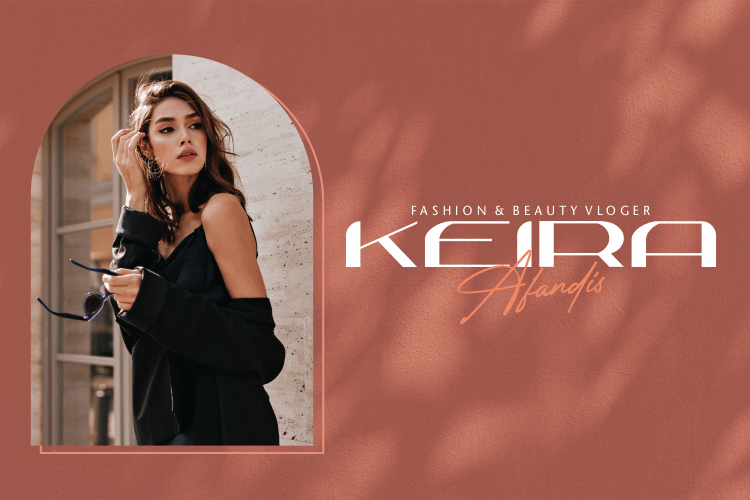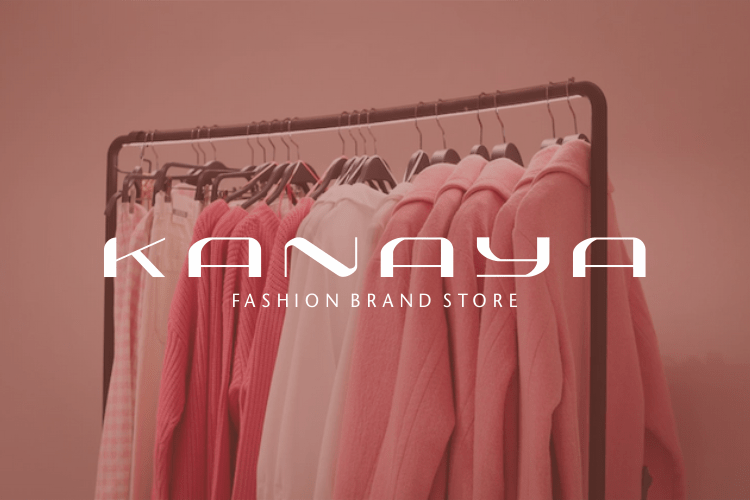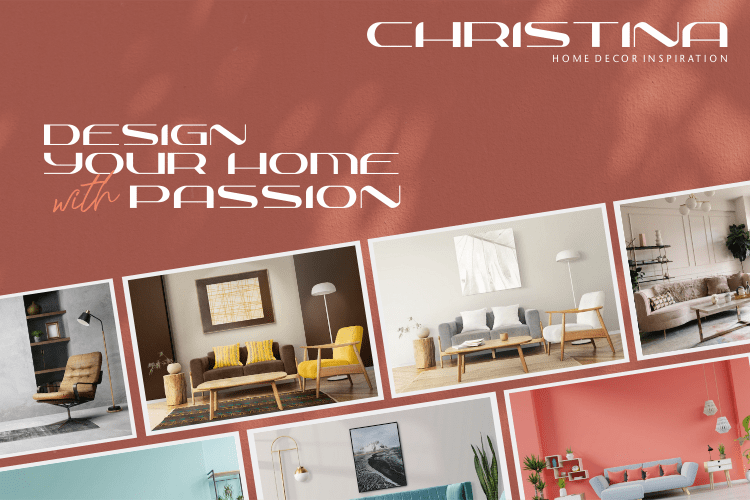
Andara Fortuna Display Font
This is a modern sans serif typeface really fancy and unique style. It’s a very versatile font that works great in large and small sizes. Perfect for editorial projects, Logo design, Clothing Branding, product packaging, magazine headers, or simply as a stylish text overlay to any background image.